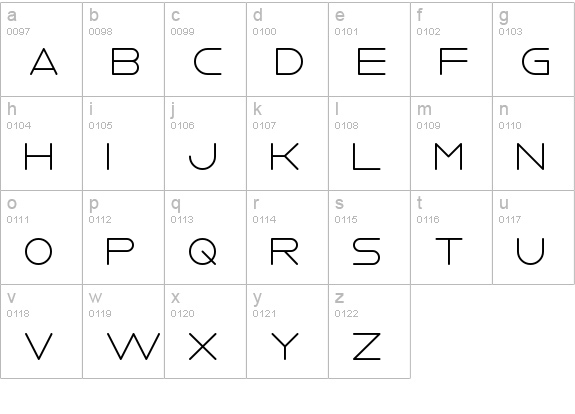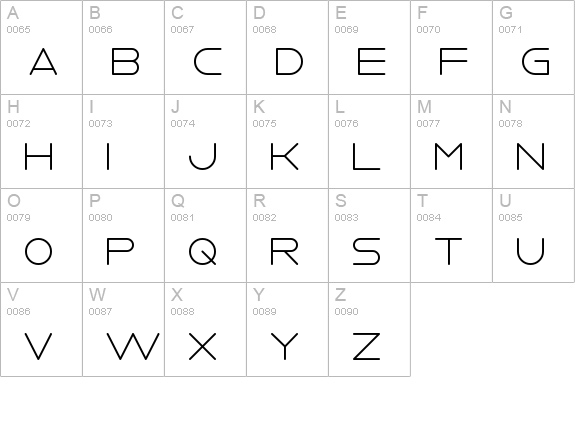
Vermin Vibes 2 Nightclub Font Details
Vermin Vibes 2 Nightclub font is a sleek and stylish typeface that exudes a modern and edgy vibe perfect for any nightlife-themed project. With its bold and futuristic design, this font is sure to make a statement and captivate your audience. The sharp lines and intricate details of Vermin Vibes 2 Nightclub font add a touch of sophistication and flair to any design. And the best part? Vermin Vibes 2 Nightclub font is freely available to download at FontsMarket.com! You can easily access this striking font and incorporate it into your projects without any cost. Whether you're working on a poster, flyer, website, or any other creative endeavor, Vermin Vibes 2 Nightclub font will elevate your design and give it that extra edge. Download it now and let your creativity shine with this unique and eye-catching font.